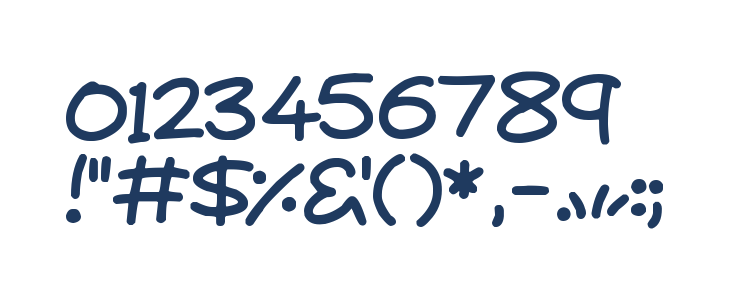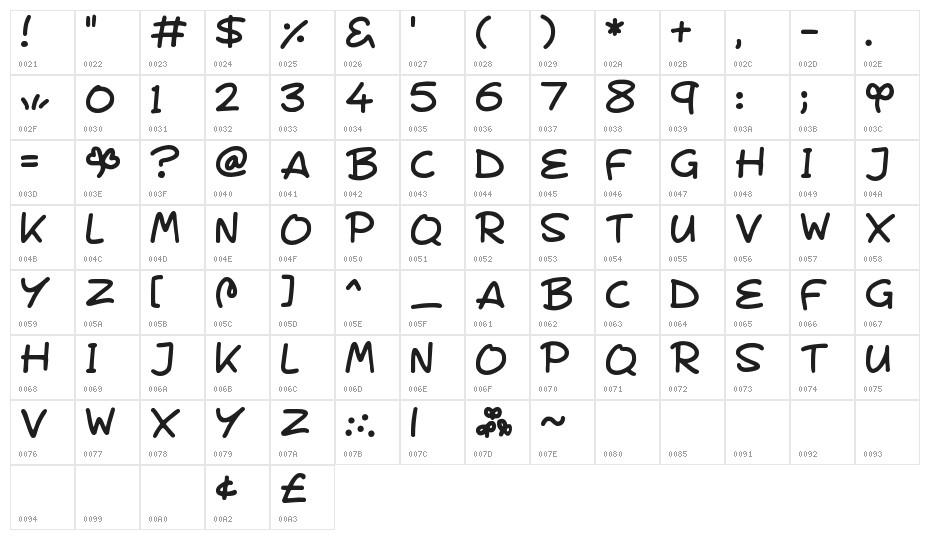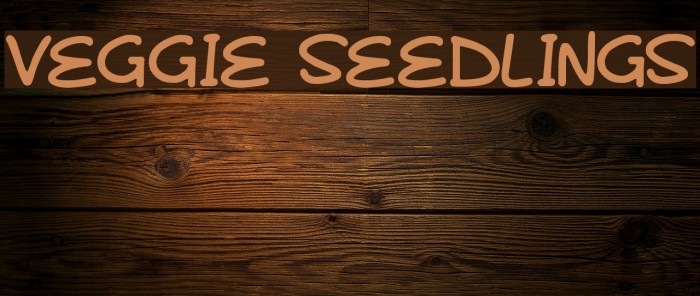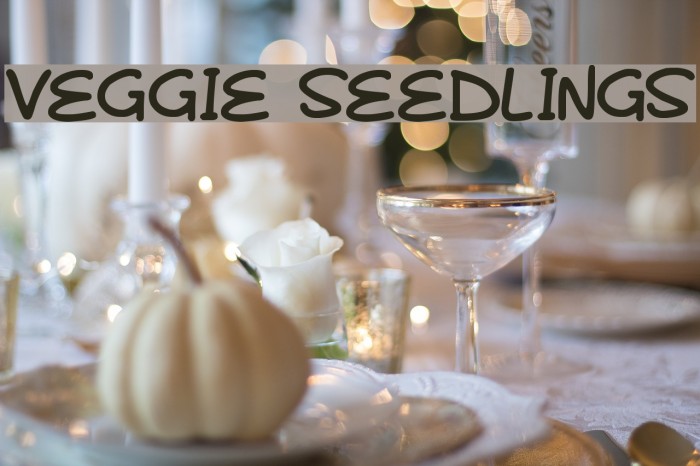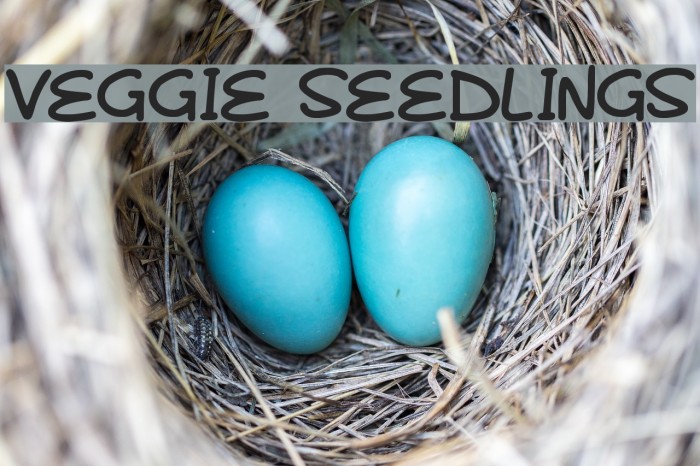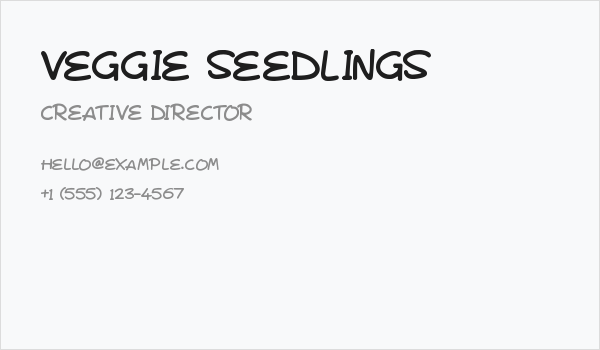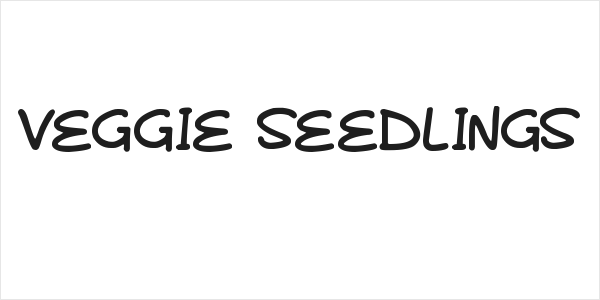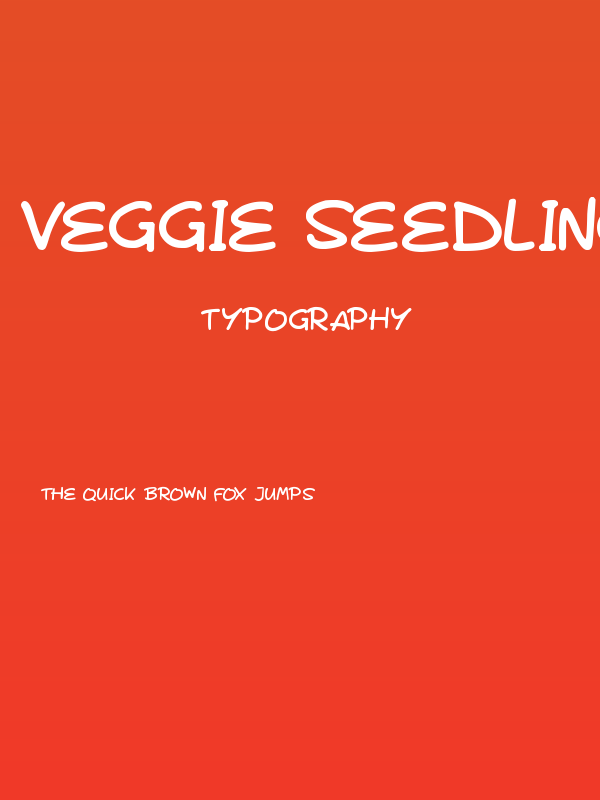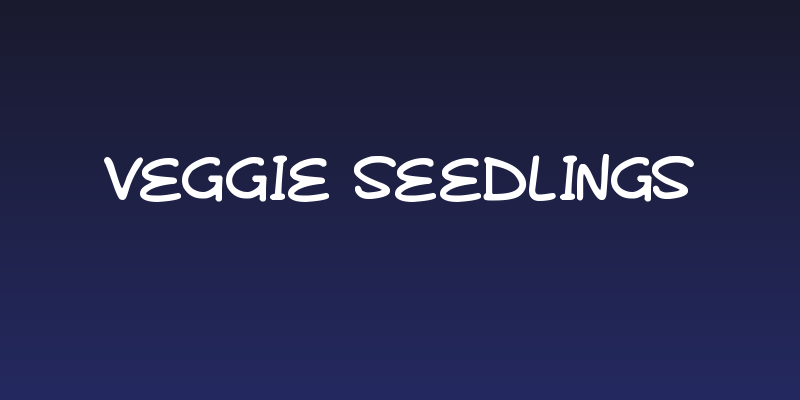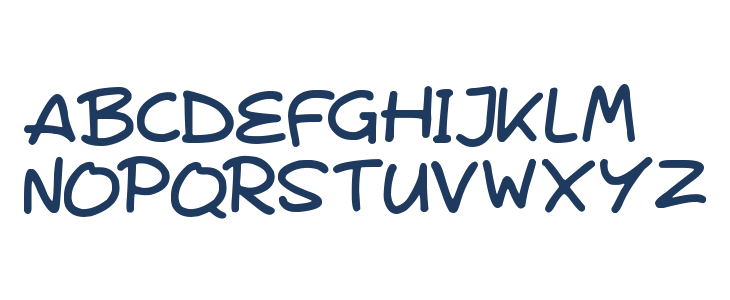
Veggie Seedlings Font
Veggie Seedlings Description
This playful and rounded font features a handwritten style with a casual and friendly appearance. The letters are bold and slightly irregular, giving them a lively and dynamic feel. The strokes are consistent in thickness, contributing to a uniform look across all characters. The font includes both uppercase and lowercase letters, numerals, and a variety of special characters, making it versatile for different uses. Its informal style is reminiscent of doodles or comic lettering, making it suitable for creative and fun projects.
| Use Case | Headlines, Logos, Informal Texts |
| Proposed Projects | Ideal for children's books, comic strips, playful branding, and casual invitations. |